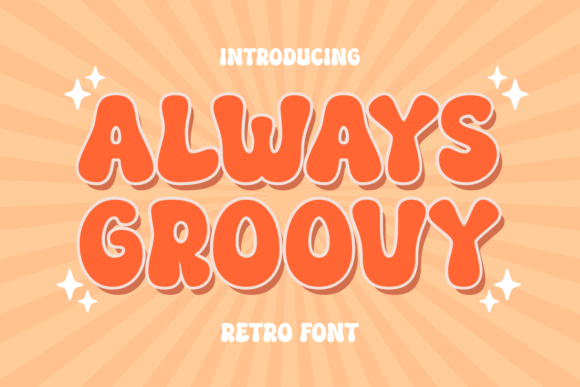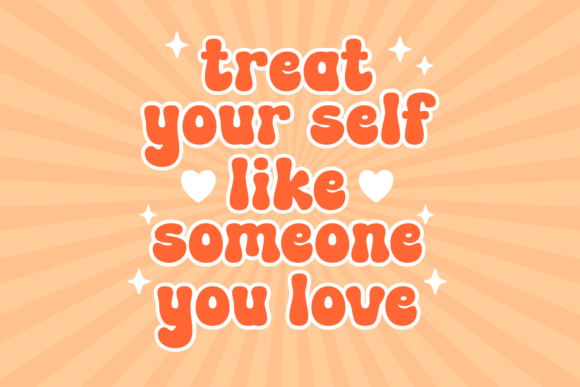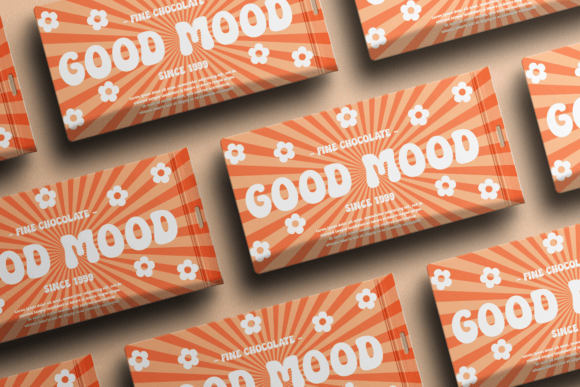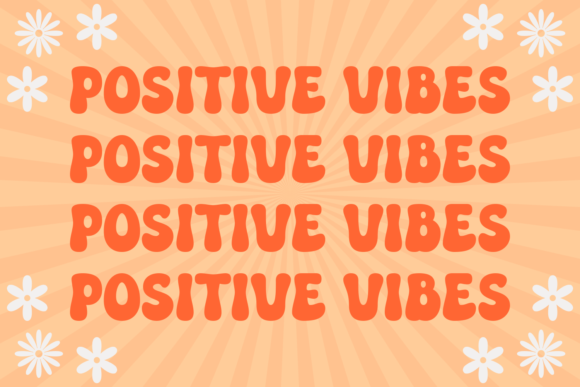
Always Groovy Font
About the Always Groovy Font
From logos to headlines, the Always Groovy Font is the perfect choice for making a lasting impression. Always Groovy is a fun, retro-style display font. Its casual and cheerful vibe is perfect for all your hippie, flower-power designs! It is also PUA encoded which means you can access all the glyphs and special characters with ease!
Always Groovy Font excels in headlines, posters, and short-form branding applications where its retro charm can shine. It’s ideal for projects aiming for a 60s-70s aesthetic, think vintage clothing brands, music festival posters, or quirky packaging designs. However, its playful nature and relatively large x-height make it unsuitable for body text or UI elements requiring high readability.
Pairing Always Groovy with a clean sans-serif like Open Sans for body text creates a strong visual contrast, balancing its retro boldness with modern clarity. For a more vintage-inspired feel, consider pairing it with a serif typeface like Garamond or Playfair Display. These pairings offer readability where Always Groovy might fall short.
The font’s overall personality is undeniably cheerful and bold, radiating a sense of carefree optimism and retro cool. Its distinctive character makes it a strong choice for projects seeking a playful, attention-grabbing aesthetic.